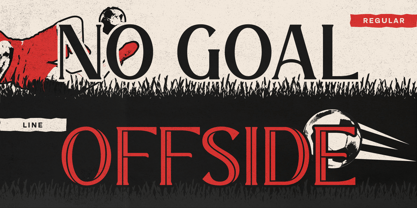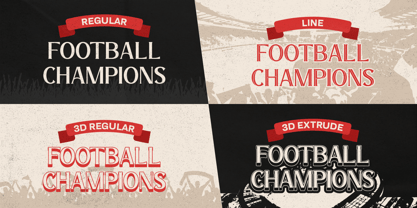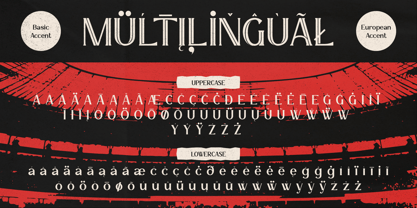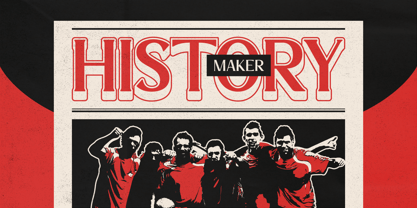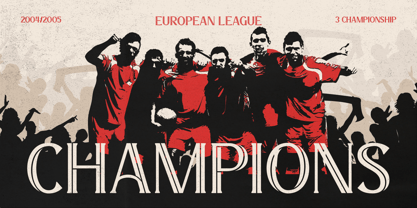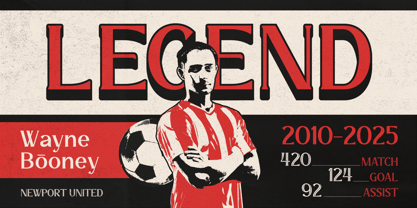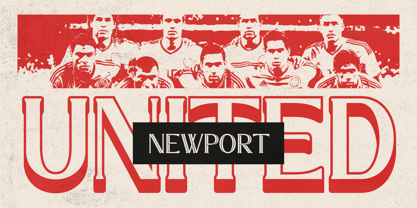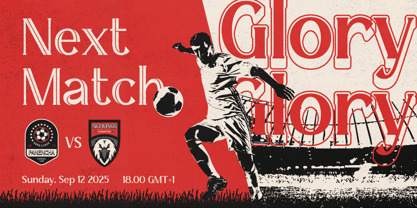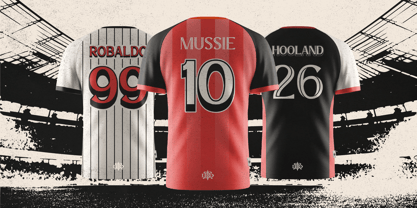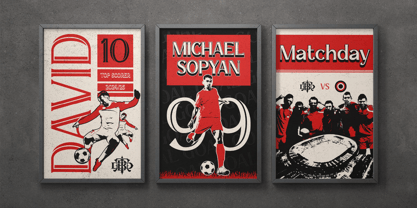
Trivelas 21
by Burntilldead
The Trivelas 21 Font Family was designed by Eric Kurniawan and published by Burntilldead. Trivelas 21 contains 4 styles and family package options. More about this family
Trivelas21 is an authentic football-inspired font built to capture the raw passion of the game. Designed with classic sports typography in mind, this typeface blends strong letterforms, elegant curves, and vintage details commonly seen in legendary football posters, match programs, and championship headlines. Inspired by iconic football moments, Trivelas21 delivers a bold yet refined look that feels powerful without being overdone. The character shapes are clean, confident, and highly readable, making it perfect for impactful headlines and statement typography. Trivelas21 gives you the flexibility to create dynamic compositions—from flat editorial layouts to bold dimensional visuals. Whether you’re designing for football posters, sports branding, magazine covers, merchandise, or event promotions, Trivelas21 brings that unmistakable match-day energy straight into your design. Features: A - Z set (Uppercase & Lowercase), Number, Punctuation, Multilingual